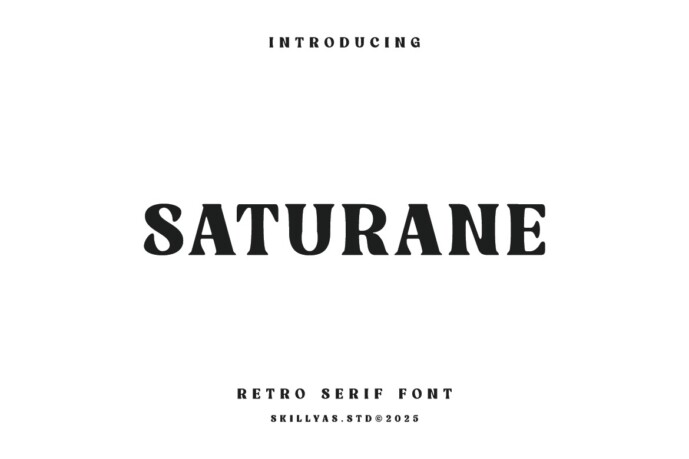
Satutrane Font
Designer: skillyasstudio
Satutrane is a Stylish Retro Serif Font that blends Vintage Charm with Modern Elegance. Perfect for Logos, Posters, Packaging, and Branding, it brings any design a nostalgic yet refined look.